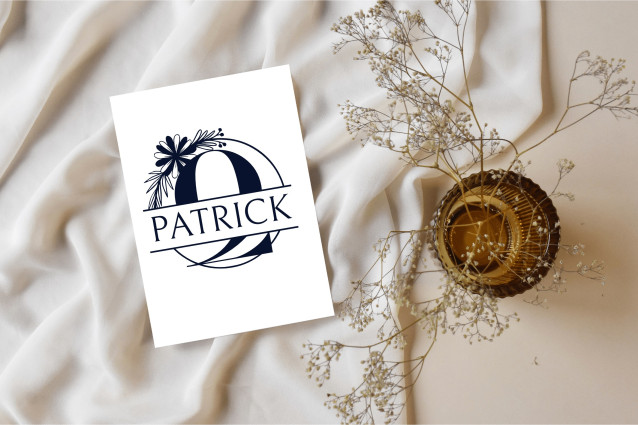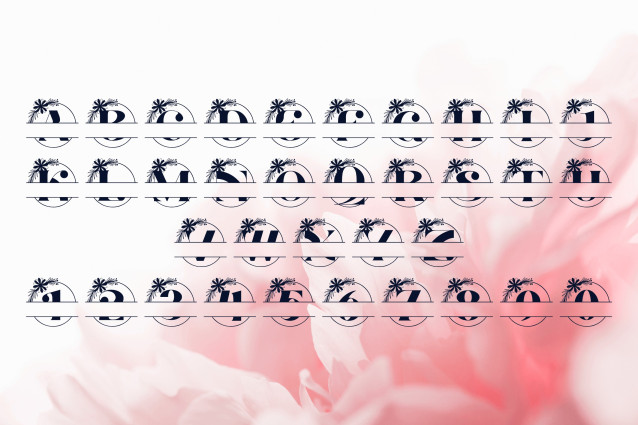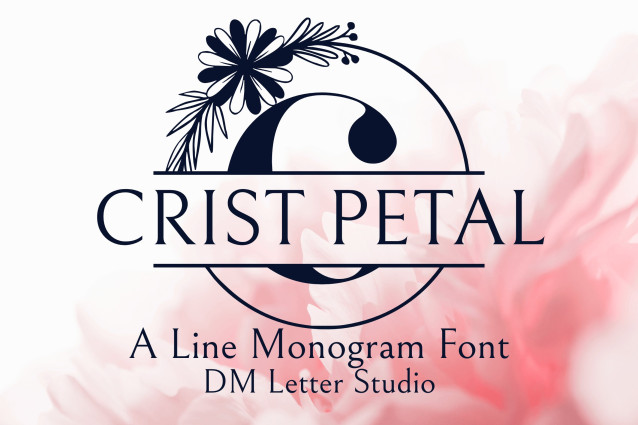
Crest Petal Split Monogram Font
Crest Petal Split Monogram is a graceful serif font with split-letter styling and floral embellishments, perfect for crafting personalized crests, name signs, and upscale event designs. Each uppercase letter features a delicate botanical flourish and a clean center split, making it ideal for inserting names or custom text. This monogram font brings refined charm to weddings, boutique branding, and luxurious gifting.